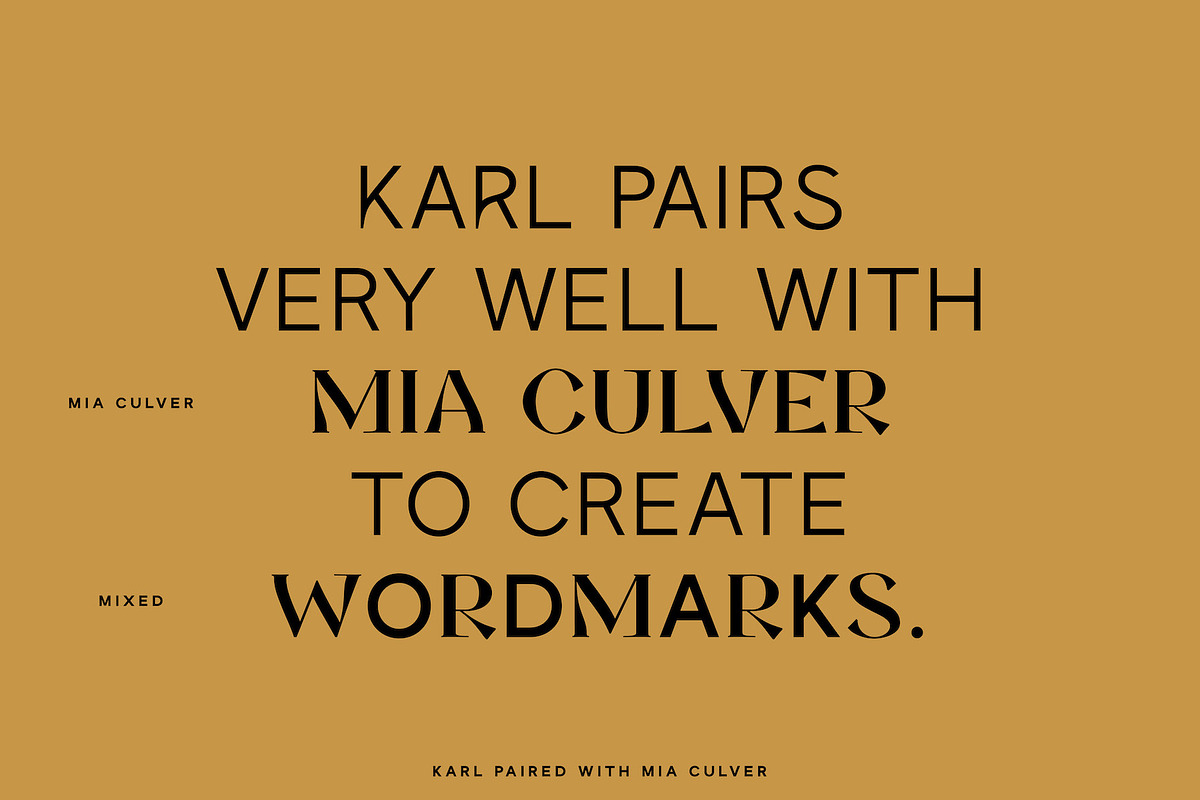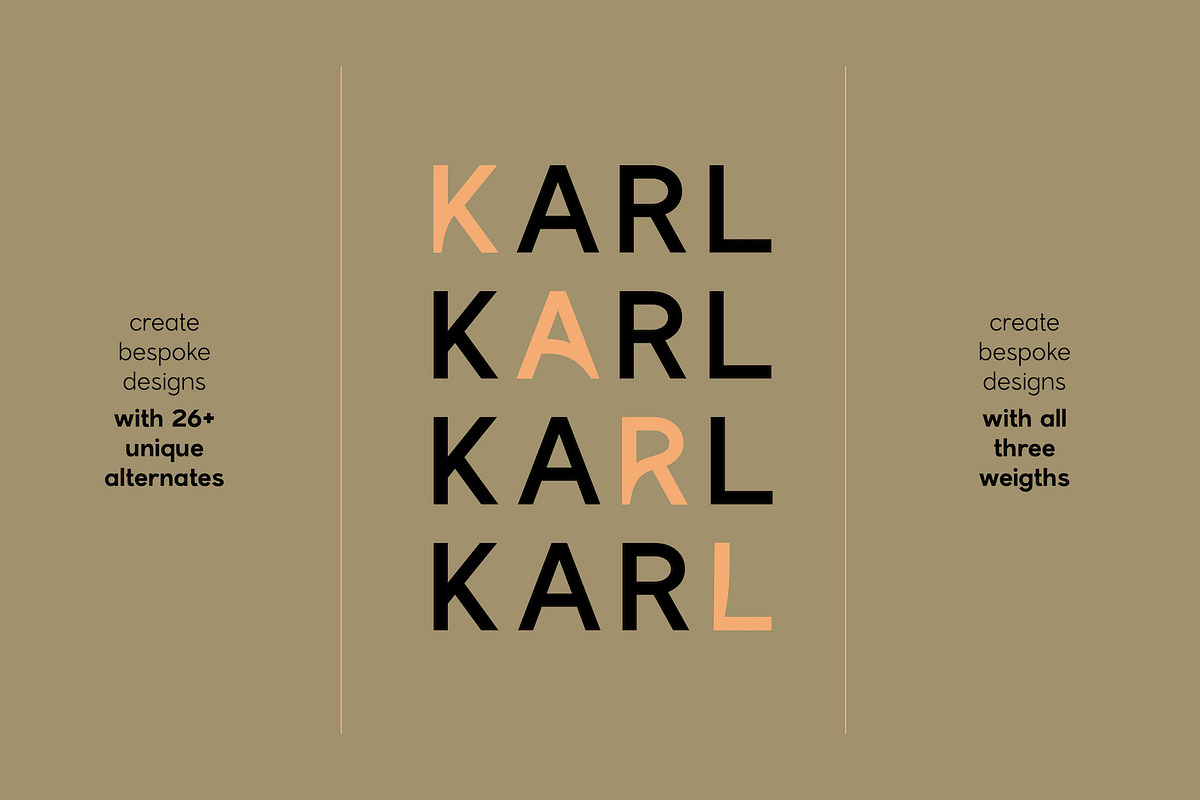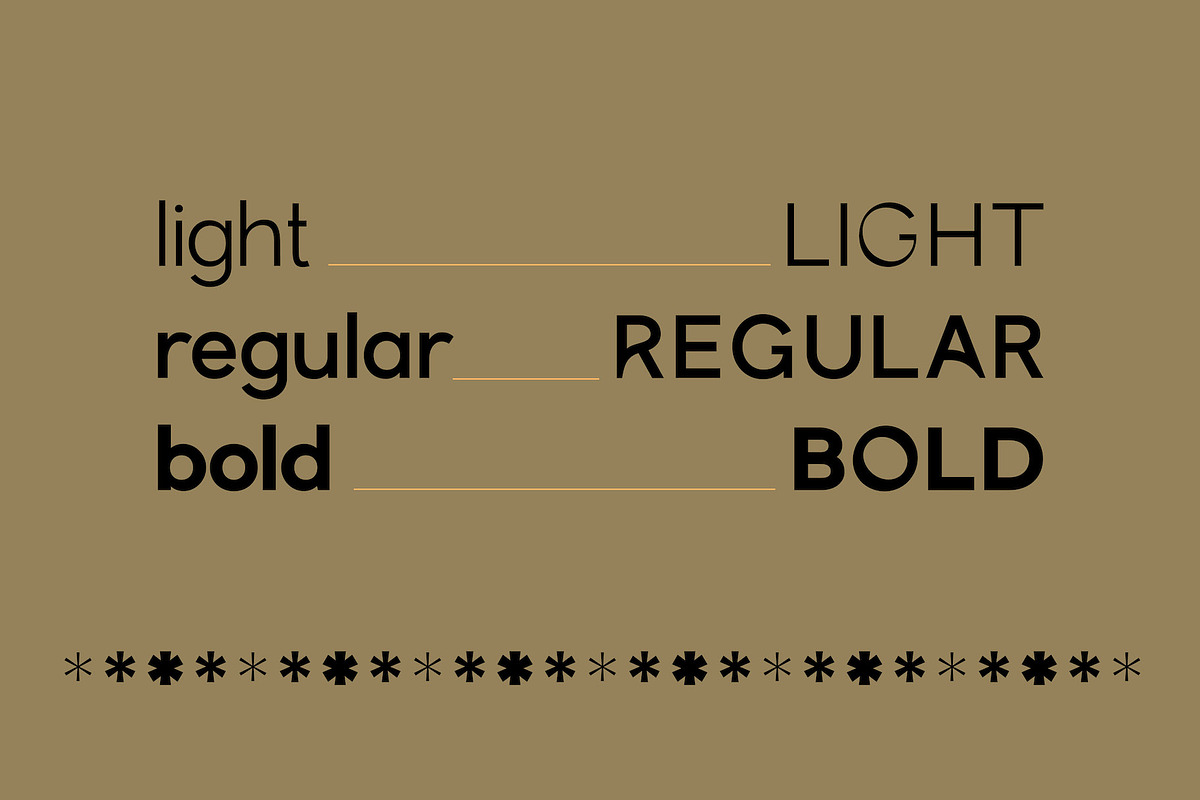
Karl is a bespoke & minimalist 3-weight sans serif typeface that is perfectly suited for creating unique designs. This typeface is equipped with 26 stylistic alternates to make everything you design look refined, custom and professional so very effortlessly.
The thoughtfully & somewhat irregularly designed alternates in combination with the clean main characters create a perfect balance for your design project. Karl saves you from having to find the perfect font pair for your next design project.